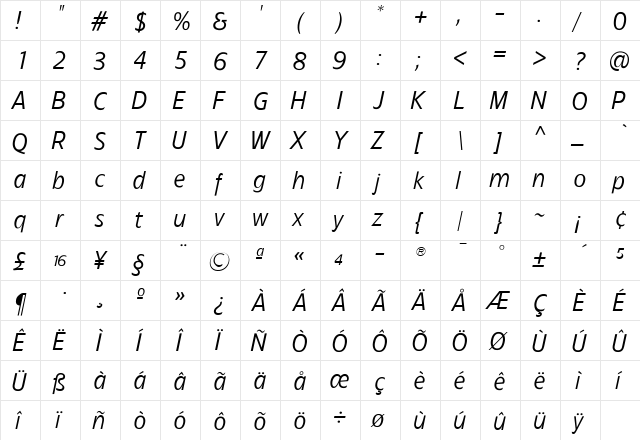
TFForeverTwo Italic
| Foundry | J. Treacy,Treacyfaces,Inc |
| Year | 1988 |
Design Context for TFForeverTwo Typeface
TFForeverTwo takes a measured approach to typography — its balanced proportions and neutral character make it a reliable workhorse for both digital and print work. The dynamic lean of this cut emphasises speed and emphasis in any layout.
Pro Tip: Use TFForeverTwo for emphasis, pull quotes, and subheadings where its slanted energy can add rhythm to the layout.